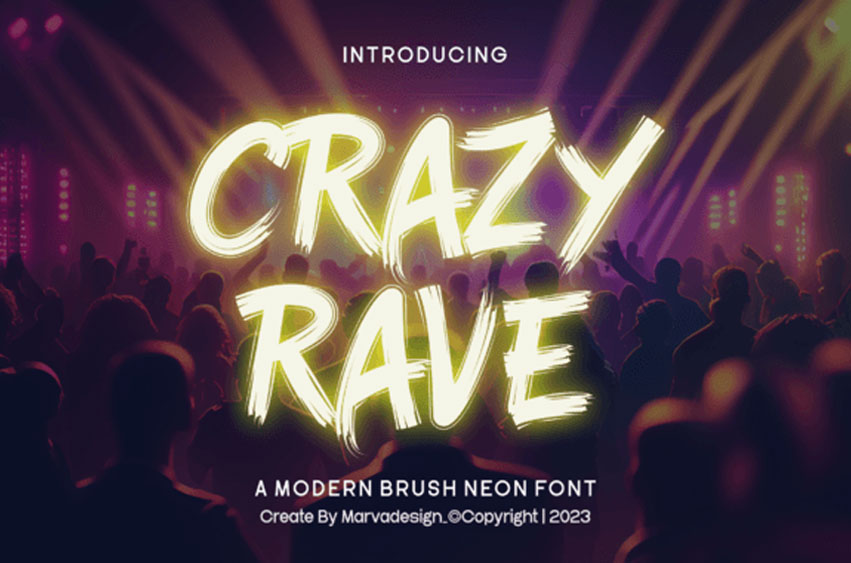
Crazy Rave Font
Crazy Rave Font is a Modern Brush Neon is a vibrant, eye-catching font that mimics the look of brush strokes. It features bright neon colors, making it perfect for creating lively and energetic designs.
This font is great for party invitations, posters, and anything that needs a fun, modern, and dynamic feel.